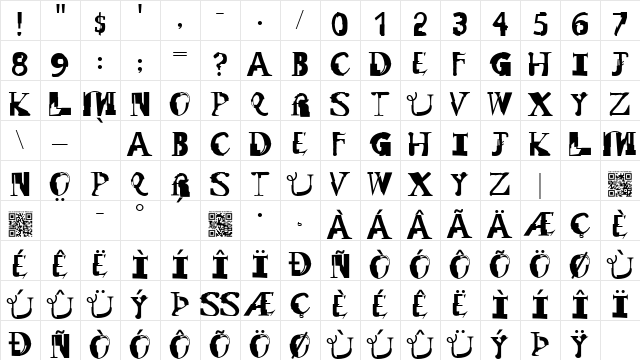
Remix Regular Free Font
Remix Regular
Remix Family
Design Context for Remix
Remix is a composed and adaptable typeface that performs quietly and consistently across a wide range of design contexts.